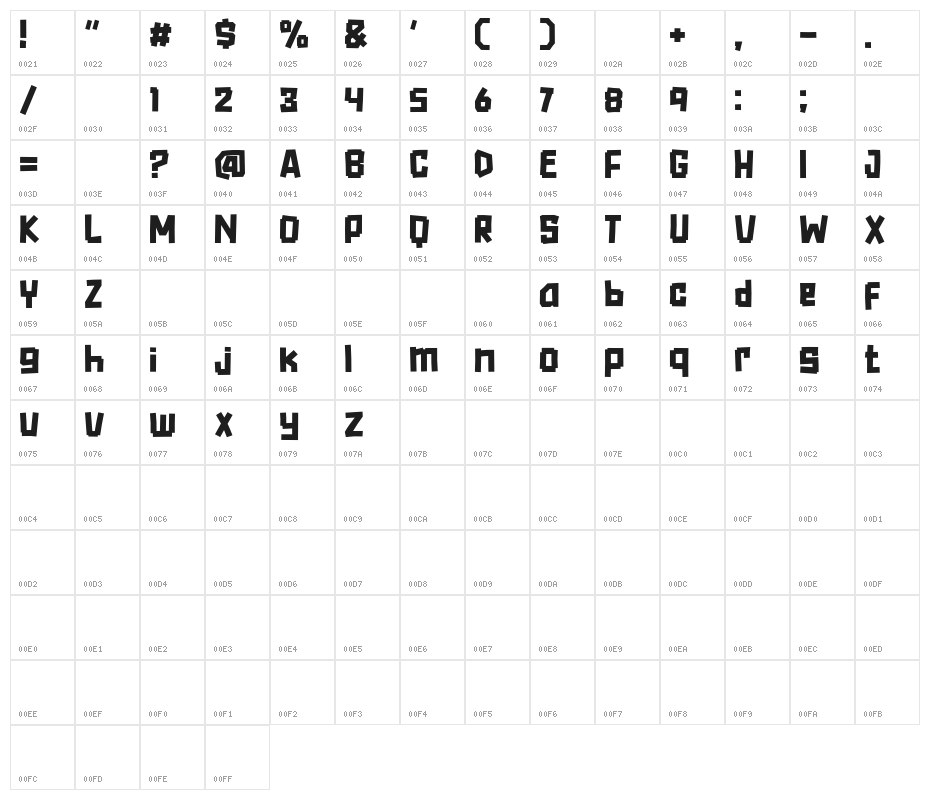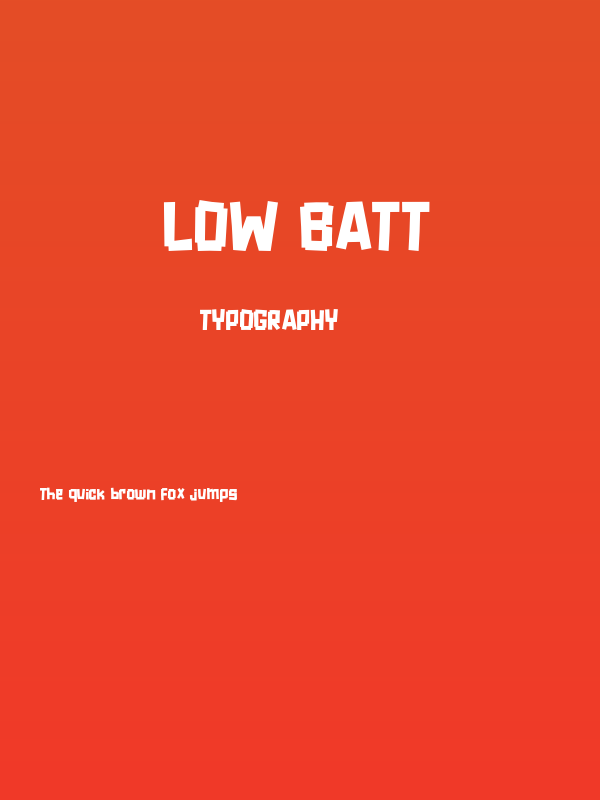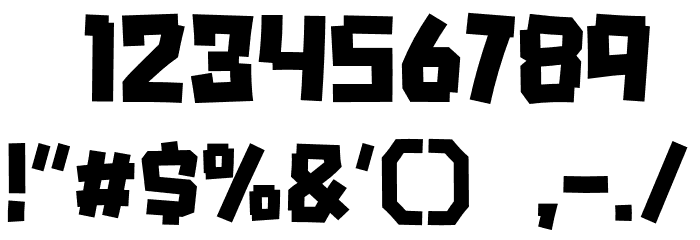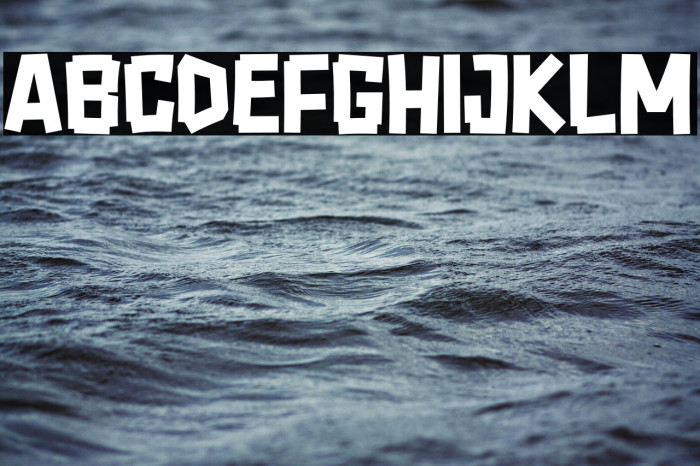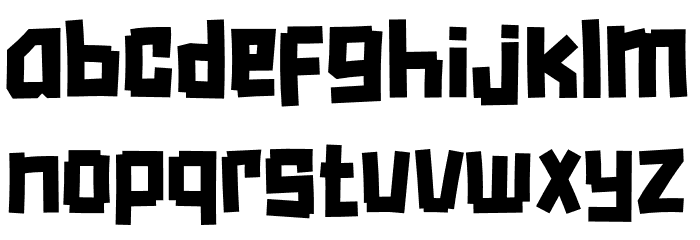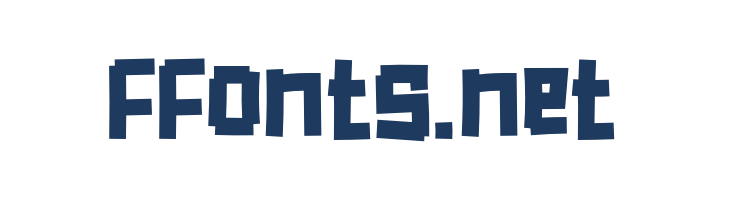
Low Batt Font
Low Batt Description
This font features a bold and edgy design with a distinctly urban and graffiti-inspired aesthetic. The characters are blocky and angular, with uneven edges that give a hand-drawn, dynamic feel. The uppercase and lowercase letters maintain a consistent style, emphasizing a rugged and informal look. Numbers and special characters follow the same design principles, ensuring a cohesive appearance across all glyphs. The font's unique style makes it stand out, suitable for projects that require a strong visual impact.
| Overall Style | Modern, Urban |
| Proposed Projects | Ideal for street art designs, urban-themed posters, edgy branding, and music album covers. |